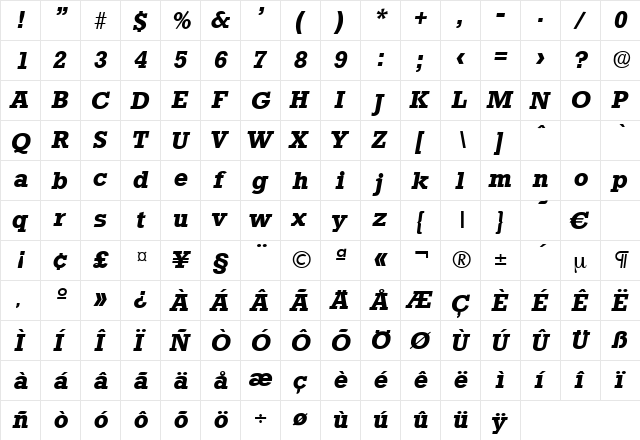
Stafford-DemiBoldIta Regular
Design Context for Stafford-DemiBoldIta Typeface
Stafford-DemiBoldIta offers clean, dependable letterforms without strong stylistic allegiance, making it a practical choice for designers who need flexibility. The heavy weight commands attention and anchors typographic hierarchies.
Pro Tip: Use Stafford-DemiBoldIta in both headline and body roles to test its range before committing to a single application.